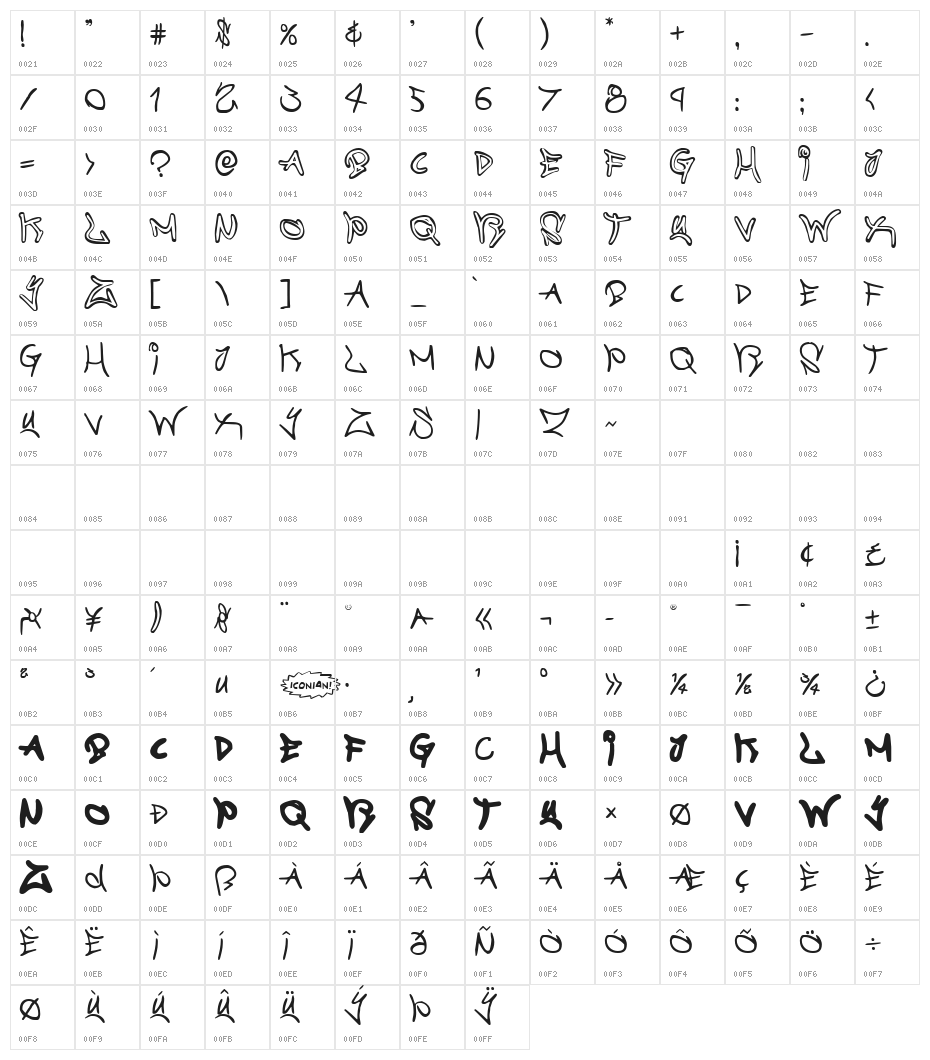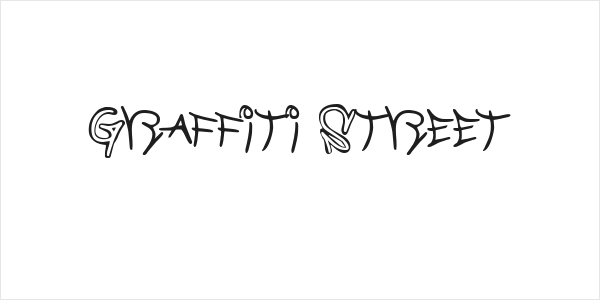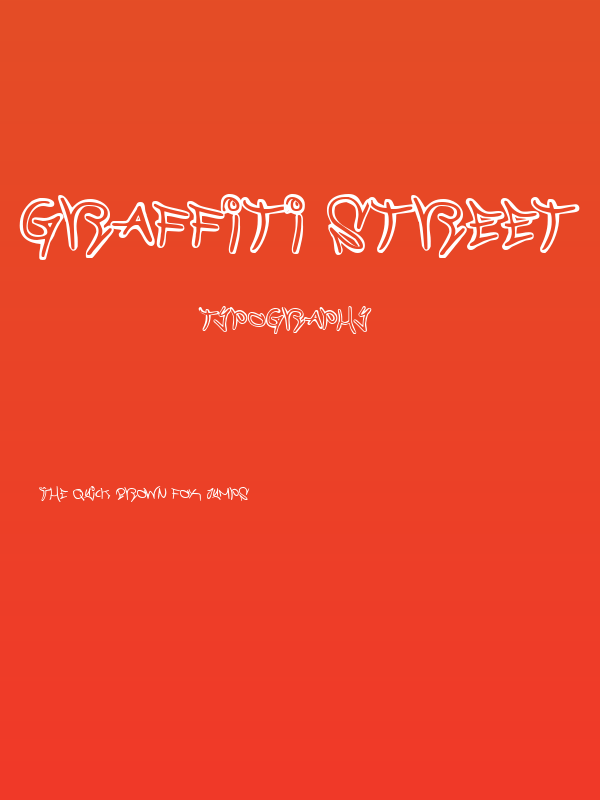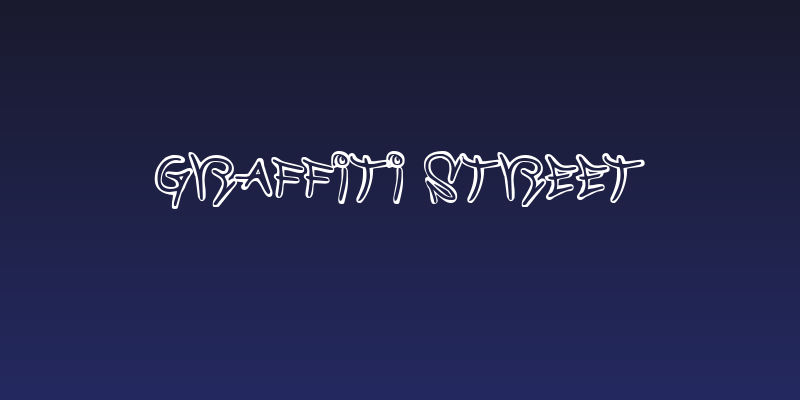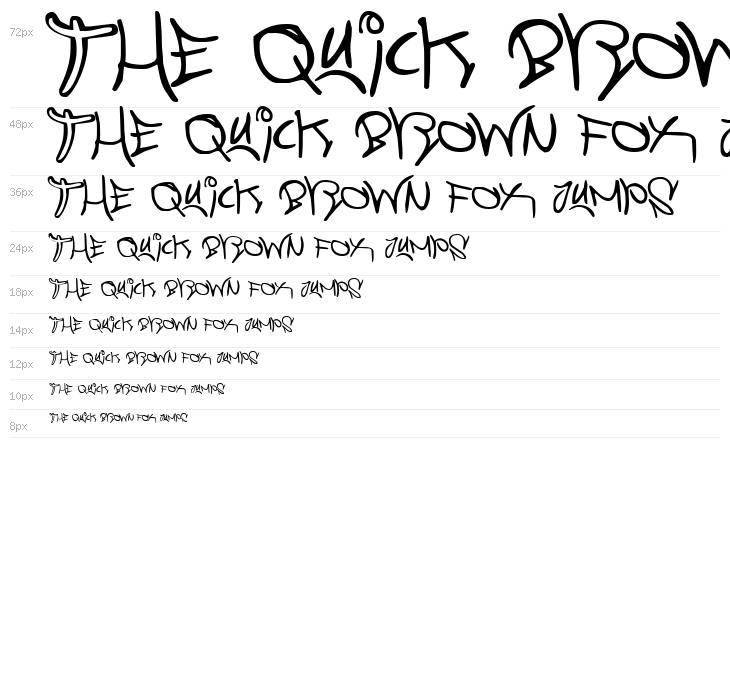
Graffiti Street Font
Graffiti Street Description
This font embodies the raw, energetic essence of street art, with each character displaying a unique, hand-drawn style that mimics the fluidity and spontaneity of graffiti. The letters are bold and dynamic, with exaggerated curves and angles that give them a sense of movement and vibrancy. The uppercase and lowercase letters maintain a consistent style, while the numbers and special characters are equally expressive, adding to the overall urban aesthetic. The font's design is perfect for projects that require a bold, artistic touch, capturing the rebellious spirit of street culture.
| Overall Style | Urban, Artistic, Energetic |
| Proposed Projects | Ideal for street art projects, urban-themed designs, music album covers, and event posters. |